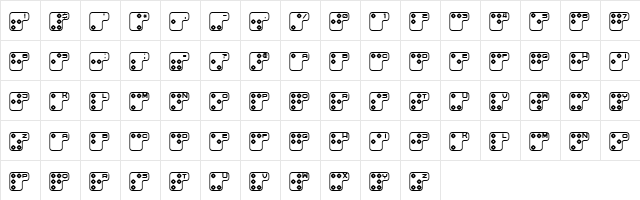
Brailler V1 Light Regular
Design Context for Brailler V1 Light Typeface
Brailler V1 Light takes a measured approach to typography — its balanced proportions and neutral character make it a reliable workhorse for both digital and print work. The delicate stroke weight brings airiness and refinement to layouts.